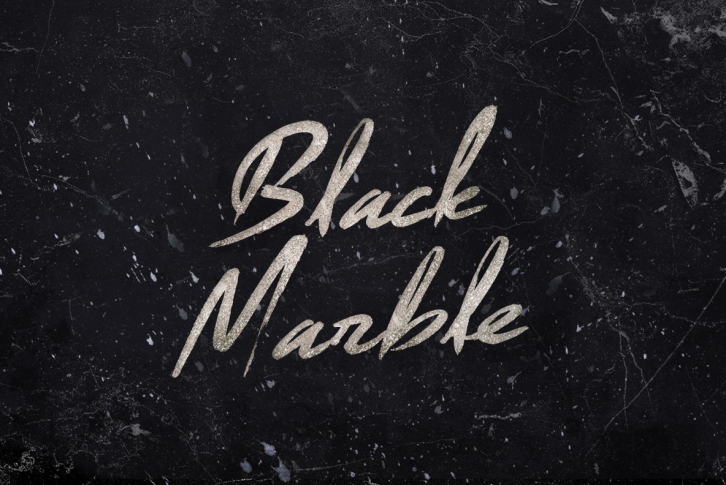
Under the pressure of literal continents, suffering the super-hot intrusions of magma, if stone were a man he might break. But a crystallizing purpose founds folded foliations and Black Marble forms foundations for new mineral formations.